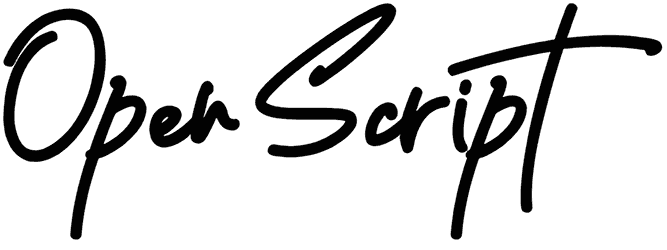
Open Script Font
You may use Open Script, a signature-style teacher font, in any of your written or visual projects to give them a more personal feel and a more professional appearance. The innovative letters and elegant curves of Open Script add polish to any project.